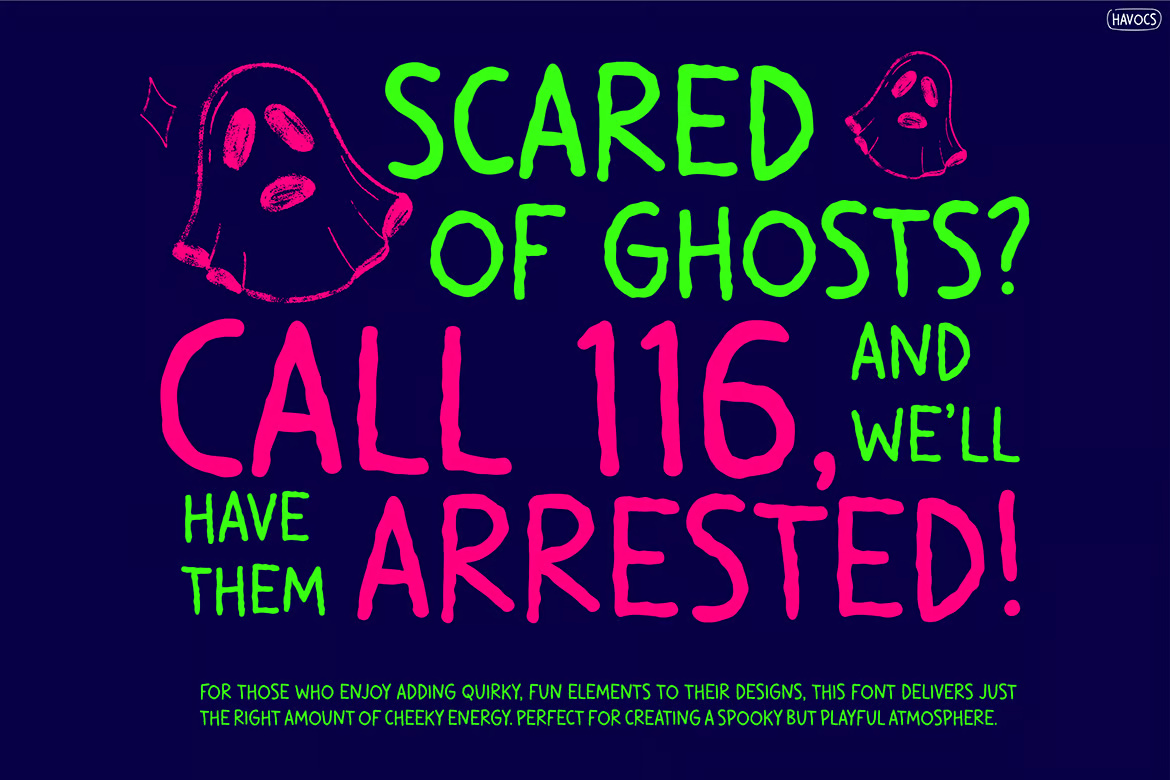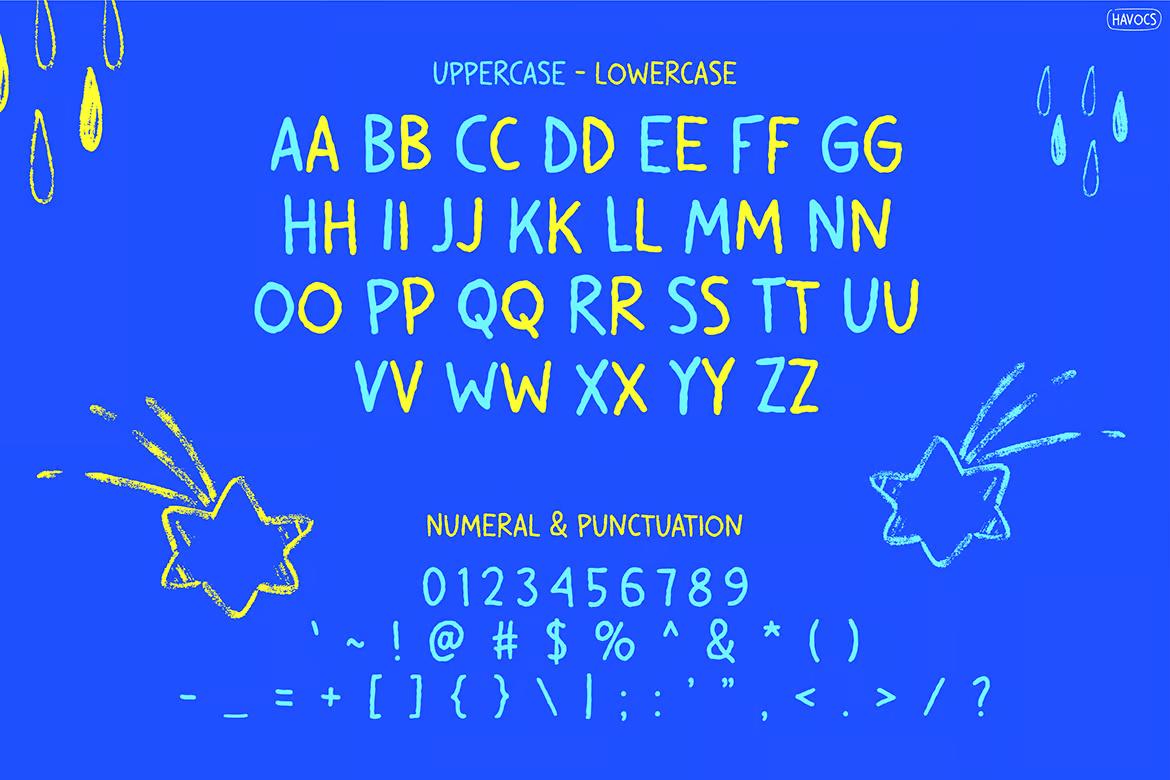
HAVOCS – Unleash the Wild Side of Typography!
Ditch the rules and embrace the quirky, chaotic energy of HAVOCS, a font that thrives on bold fun, playful rebellion, and neon-style expressiveness. Designed for those who love vibrant lettering, unpredictable curves, and lively creativity, HAVOCS delivers a dose of energy and personality to any design.
Perfect for posters, fun branding, Halloween themes, and anything that needs a punch of playful anarchy, HAVOCS blends irregular, wobbly strokes with an electrifying color palette, making it a go-to font for expressive, youthful, and bold designs. Whether you’re designing for spooky vibes, funky quotes, or experimental branding, HAVOCS ensures your words will never be ignored.